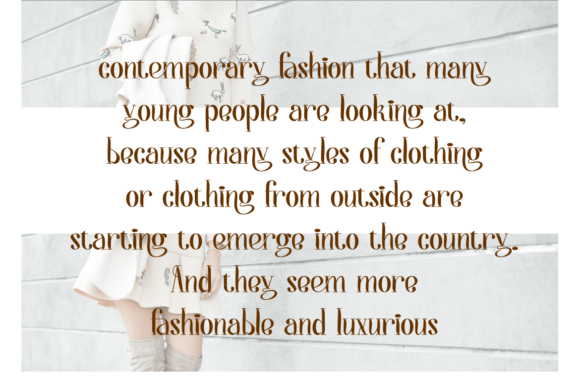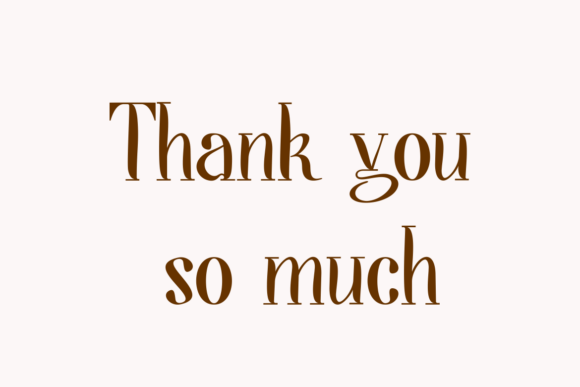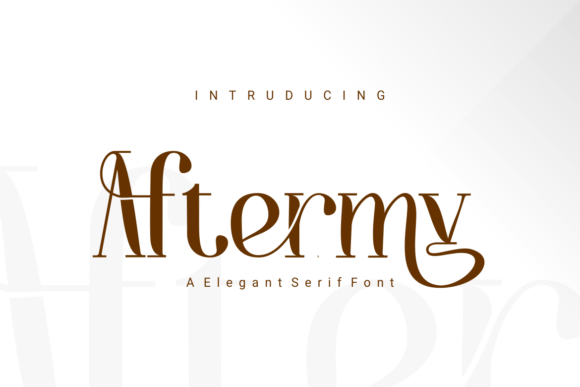
Discover the Elegance of Aftermy Font: A Masterpiece of Fluid Typography
In the world of typography, few fonts have made as significant an impact as the Aftermy font. This stunning display of fluid typography reimagines classic serif structures with flowing, vine-like connections, creating a truly unique and elegant serif typeface. The Aftermy font is the epitome of “quiet luxury” – it doesn’t need to shout to be noticed, but rather, it commands attention with its understated sophistication.
The Beauty of Fluid Typography
The Aftermy font is designed to resemble a continuous stroke of ink, with ligatures that bridge characters in unexpected and beautiful ways. This creates a custom, hand-crafted feel that is usually only achievable through professional calligraphy. The fluid connections between characters give the font a sense of movement and fluidity, making it perfect for designs that require a touch of elegance and refinement.
Perfect for Wedding Stationery and High-End Editorial Layouts
The Aftermy font is a dream typeface for wedding stationery, high-end editorial layouts, and branding for creative professionals who want to showcase their eye for detail. Its elegant and sophisticated design makes it ideal for designs that require a touch of luxury and refinement. Whether you’re designing a wedding invitation, a fashion editorial, or a brand identity, the Aftermy font is sure to make a lasting impression.
The Power of “Entwined” Characters
The beauty of the Aftermy typeface is most apparent in its “entwined” characters, which create a custom, hand-crafted feel that is usually only achievable through professional calligraphy. These entwined characters add a level of sophistication and elegance to any design, making it perfect for high-end applications. The entwined characters also create a sense of continuity and flow, making the font feel more organic and natural.
The Aftermy font is incredibly versatile and can be used in a variety of design applications. Use it on a clean, white background for a minimalist look, or emboss it on heavy cardstock for a tactile, premium experience. The font pairs perfectly with light, airy sans-serifs for body text, allowing you to create a beautiful and harmonious design that is both elegant and refined.
Tips for Using the Aftermy Font
• Use the Aftermy font on a clean, white background to create a minimalist look that showcases the font’s elegance and sophistication.
• Embose the Aftermy font on heavy cardstock to create a tactile, premium experience that is perfect for high-end applications.
• Pair the Aftermy font with light, airy sans-serifs for body text to create a beautiful and harmonious design.
• Experiment with different colors and textures to add depth and interest to your design.
The Aftermy font is a truly unique and elegant serif typeface that is perfect for designers and crafters who want to add a touch of luxury and refinement to their designs. Its fluid typography, entwined characters, and versatility in design make it a valuable addition to any designer’s toolkit. Whether you’re designing a wedding invitation, a fashion editorial, or a brand identity, the Aftermy font is sure to make a lasting impression.